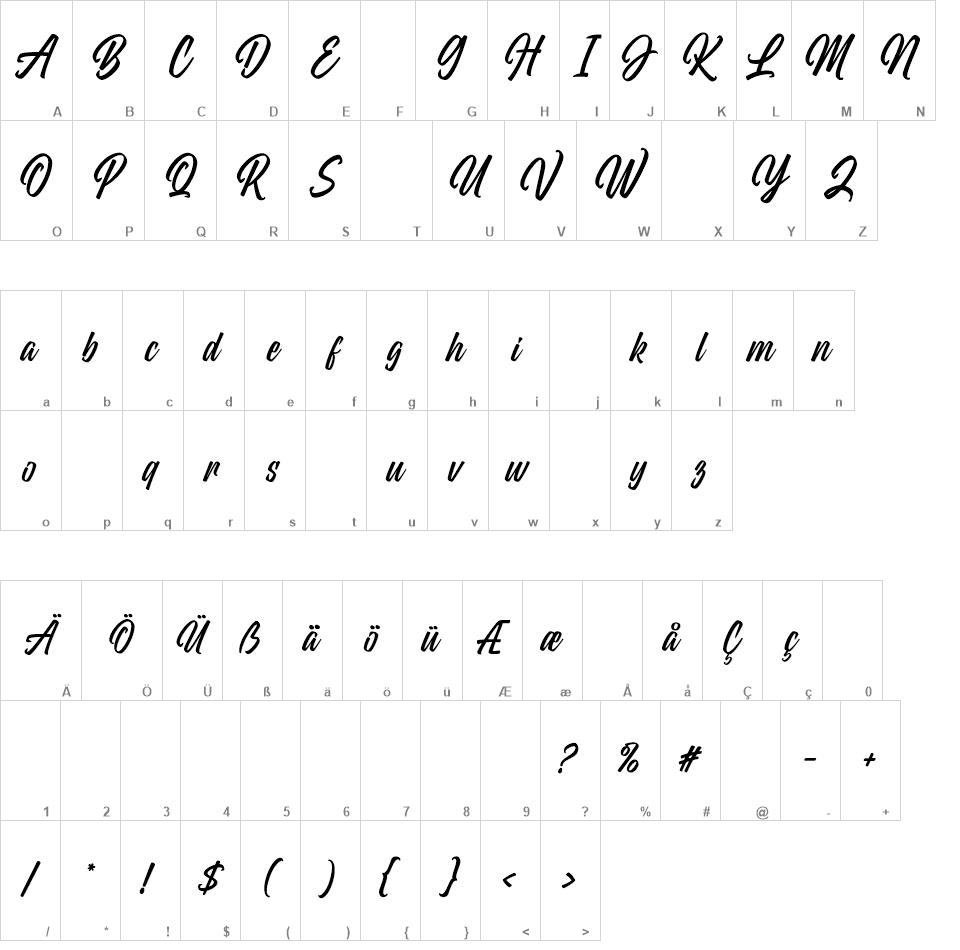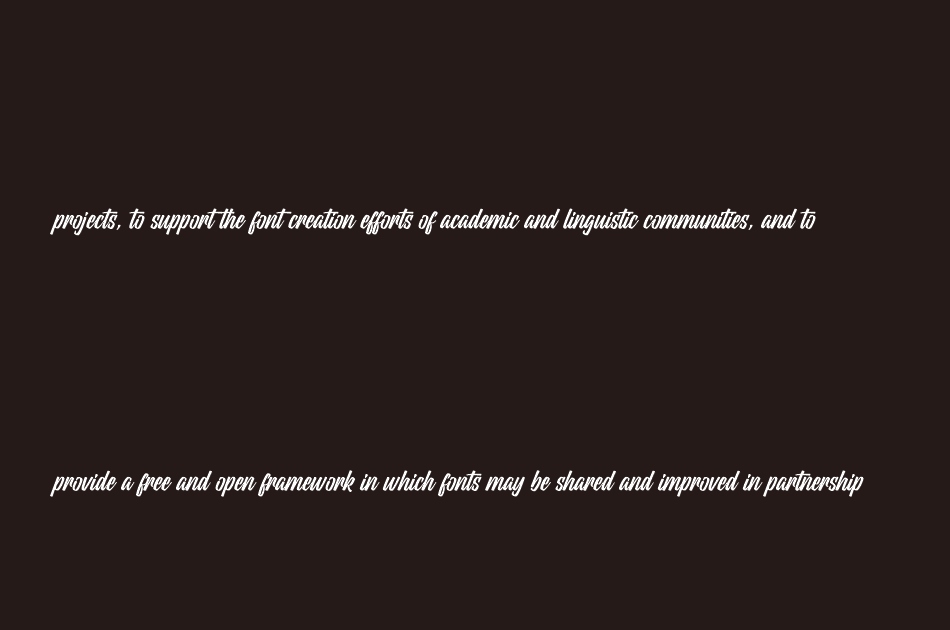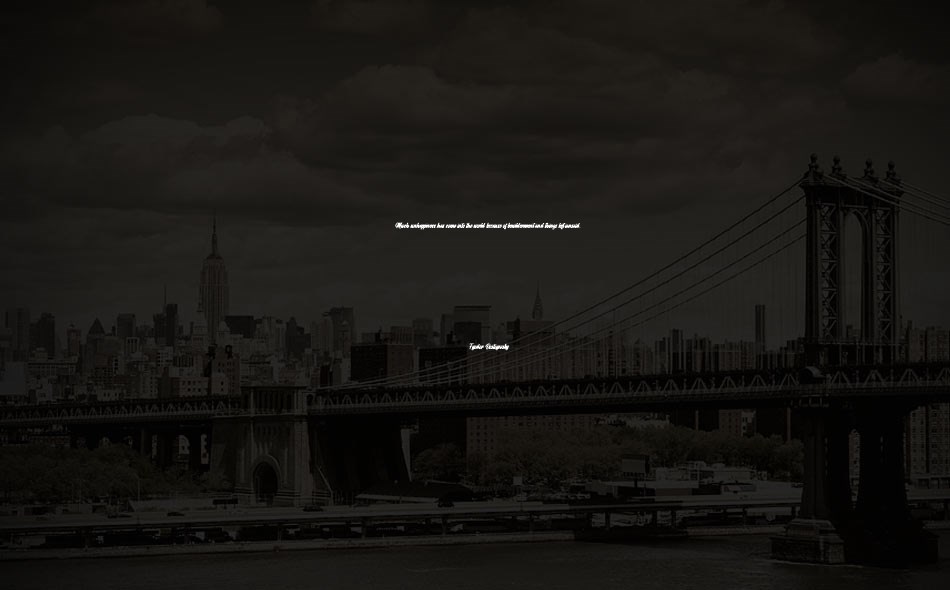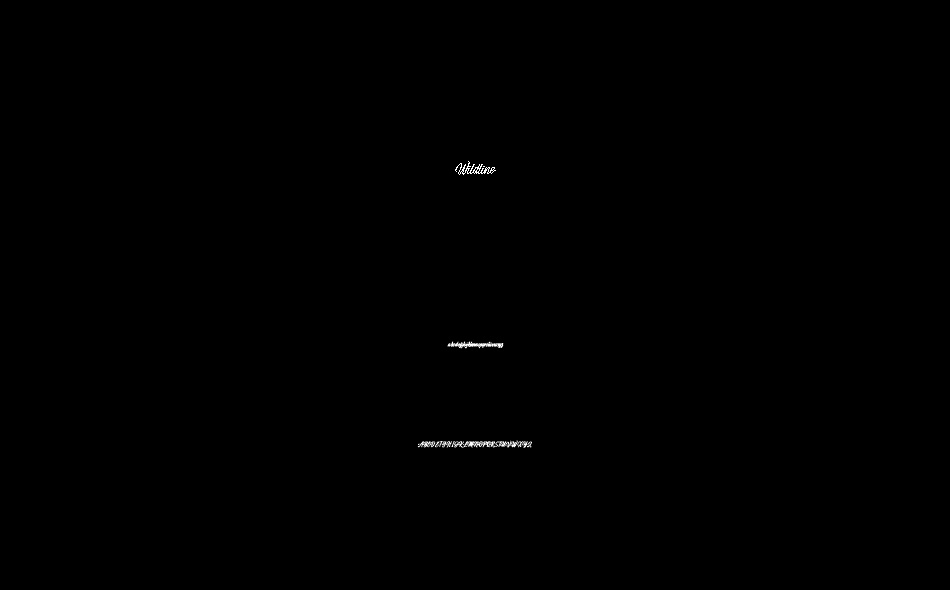
Wildline font
Wildline is a fast logotype font, created to help you designing a logotype or lettering that looks just like a hand-painted brush logo. Use it for designing signs, packaging, headlines, or a cool typographic print. Wildline has characteristics such as strength and confidence, while being dynamic, readable and very energetic.
Containing extensive lingual support, it covers all Latin European and Asian scripts. The font contains all characters you'll ever need, including all punctuation and numbers.